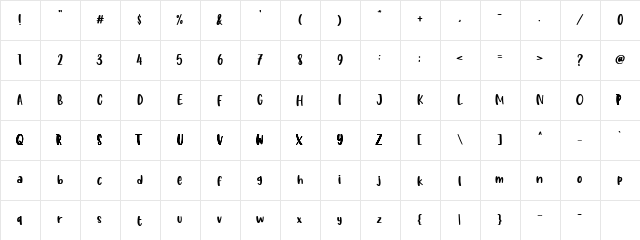
Butter Tropical Demo Version Regular
Design Context for Butter Tropical Demo Version Typeface
Butter Tropical Demo Version is a composed and adaptable typeface that performs quietly and consistently across a wide range of design contexts.